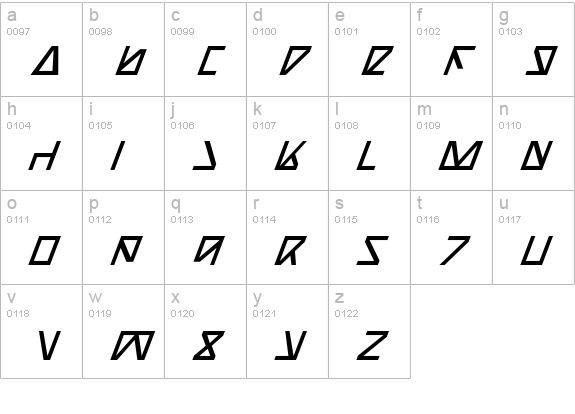
Nick Turbo Italic is a distinctive, italic variant in the Nick typeface family \xE2\x80\x94 well suited to design and typography projects.
Nick Turbo Italic is a sleek and modern font that exudes energy and sophistication. Its italicized style adds a touch of elegance to any design project, making it perfect for logos, headlines, and branding materials. The clean lines and sharp angles of this font give it a dynamic and contemporary look that is sure to make a statement. What makes Nick Turbo Italic even more appealing is that it is available for free download at FontsMarket.com. This means that you can easily incorporate this stylish font into your projects without any additional cost. Whether you are a designer looking to add a fresh touch to your work or a business owner in need of a standout font for your brand, Nick Turbo Italic is a fantastic choice that won't break the bank. Download it today and elevate your designs with this versatile and eye-catching font.